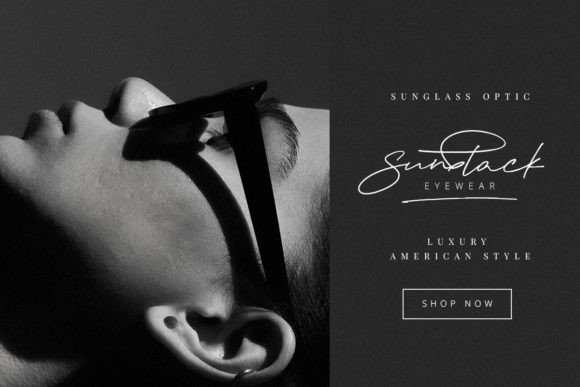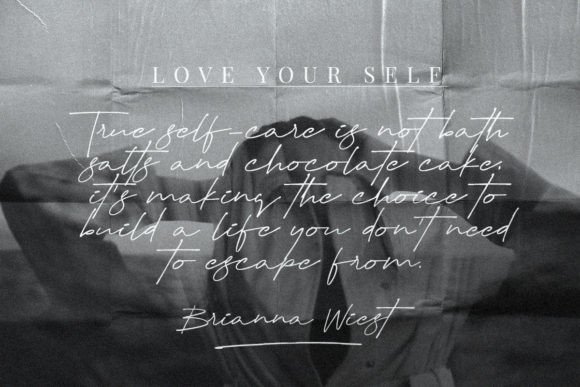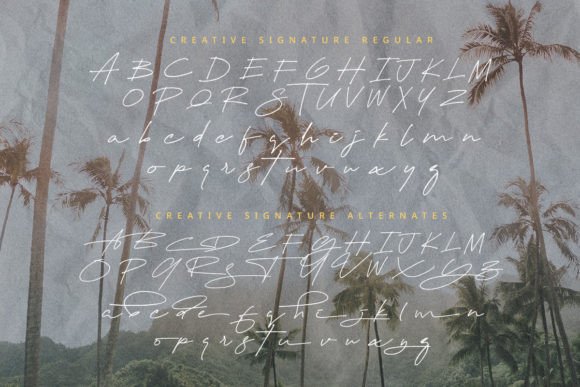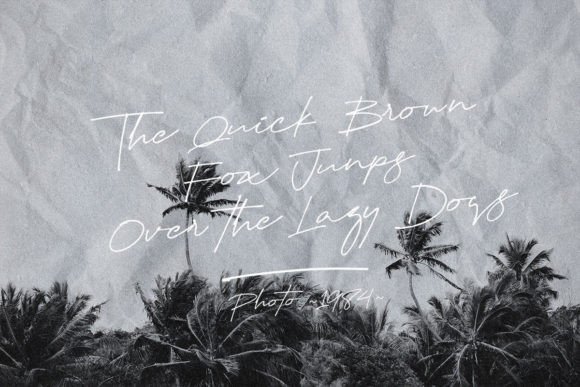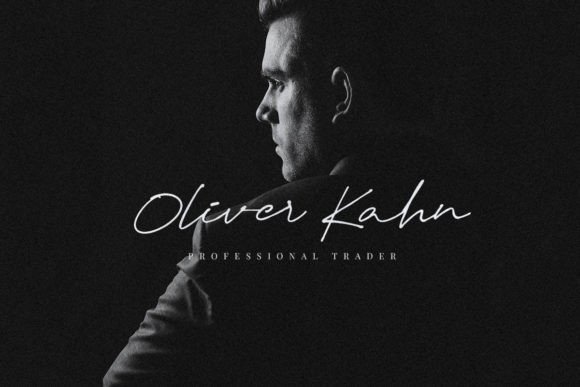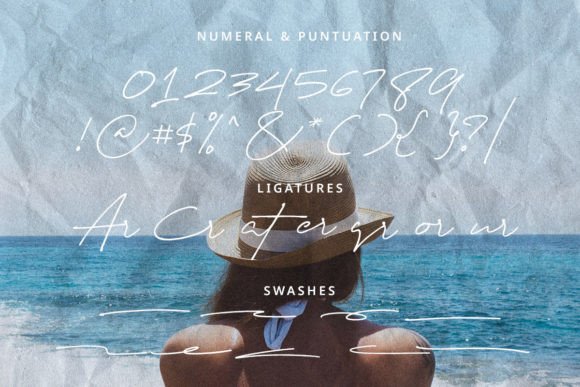
Elevate Your Designs with Creative Signature Font: A Modern Script Font
Are you looking for a font that can add a touch of originality and luxury to your designs? Look no further than Creative Signature Font. This modern script font is designed to give your ideas a signature-style look that’s sure to impress. With its elegant and sophisticated feel, Creative Signature Font is perfect for designers and crafters who want to take their designs to the next level.
What is Creative Signature Font?
Creative Signature Font is a modern script font that features a signature-style look. It’s designed to be versatile and can be used for a wide range of design projects, from invitation designs and posters to book cover titles, quotes, and social media posts. This font is perfect for anyone who wants to add a touch of luxury and sophistication to their designs.
Key Features of Creative Signature Font
- Unique and Original Design: Creative Signature Font features a unique and original design that’s sure to make your designs stand out.
- Modern and Luxurious: This font has a modern and luxurious feel that’s perfect for designers who want to create high-end designs.
- Signature-Style Look: Creative Signature Font features a signature-style look that’s perfect for adding a personal touch to your designs.
- Versatile: This font can be used for a wide range of design projects, from print designs to digital designs.
Uses of Creative Signature Font
Creative Signature Font is a versatile font that can be used for a wide range of design projects. Here are some ideas to get you started:
- Invitation Designs: Use Creative Signature Font to create beautiful and elegant invitation designs for weddings, parties, and other special events.
- Posters: Add a touch of luxury and sophistication to your posters with Creative Signature Font.
- Book Cover Titles: Use this font to create stunning book cover titles that will grab the attention of readers.
- Quotes: Create inspiring and motivational quotes using Creative Signature Font.
- Social Media Posts: Use this font to create eye-catching social media posts that will stand out from the crowd.
Benefits of Using Creative Signature Font
There are many benefits to using Creative Signature Font in your designs. Here are a few:
- Adds a Touch of Originality: Creative Signature Font adds a touch of originality to your designs, making them stand out from the crowd.
- Enhances Readability: This font is designed to be easy to read, making it perfect for designs where readability is important.
- Versatile: Creative Signature Font can be used for a wide range of design projects, making it a great addition to your font library.
- Time-Saving: With Creative Signature Font, you can create professional-looking designs in no time, saving you time and effort.
Tips for Using Creative Signature Font
Here are some tips for using Creative Signature Font in your designs:
- Use it Sparingly: Use Creative Signature Font sparingly to add emphasis to your designs.
- Pair it with Other Fonts: Pair Creative Signature Font with other fonts to create a unique and interesting design.
- Experiment with Different Sizes: Experiment with different sizes and colors to find the perfect combination for your design.
| Font Name | Creative Signature Font |
| Author | Scratch Design |
Creative Signature Font is a modern and luxurious script font that’s perfect for designers and crafters who want to add a touch of originality to their designs. With its signature-style look and versatile design, this font can be used for a wide range of design projects. Whether you’re creating invitation designs, posters, book cover titles, quotes, or social media posts, Creative Signature Font is sure to elevate your designs to the next level.